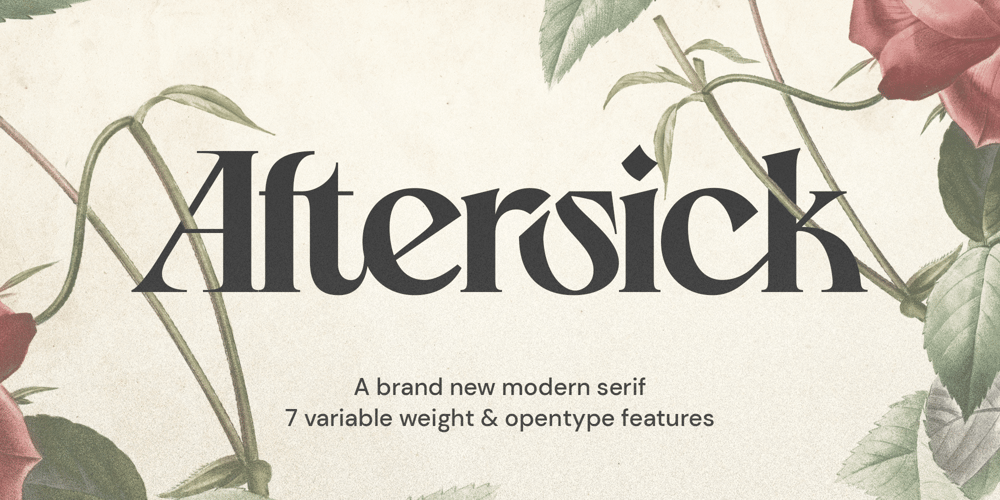
Aftersick
Aftersick font
Aftersick Font Family was designed by Roland Hüse and published by Prominent and Affluent. Aftersick contains 7 styles and family package options. Aftersick is a font that seamlessly blends modern style with a touch of vintage charm. With its elegant serifs and contemporary details, Aftersick Serif embodies a unique fusion of classic sophistication and contemporary appeal. Drawing inspiration from vintage typography, Aftersick Serif showcases a subtle nostalgia that evokes a sense of timelessness design.